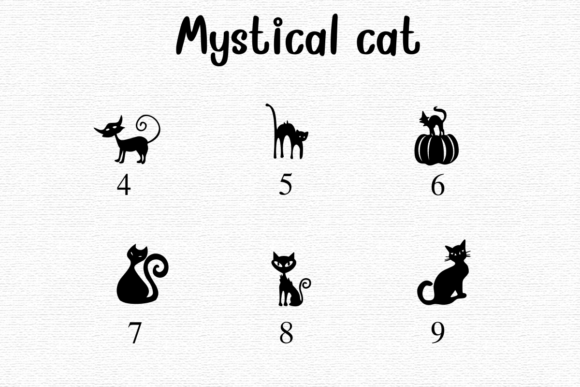
Mystical Cat Font
Mystical Cat is a dingbats font with a fun theme. This font can enhance your creative projects such as wedding invitations, DIY, crafts, decorations, logos, and many other creative ideas.